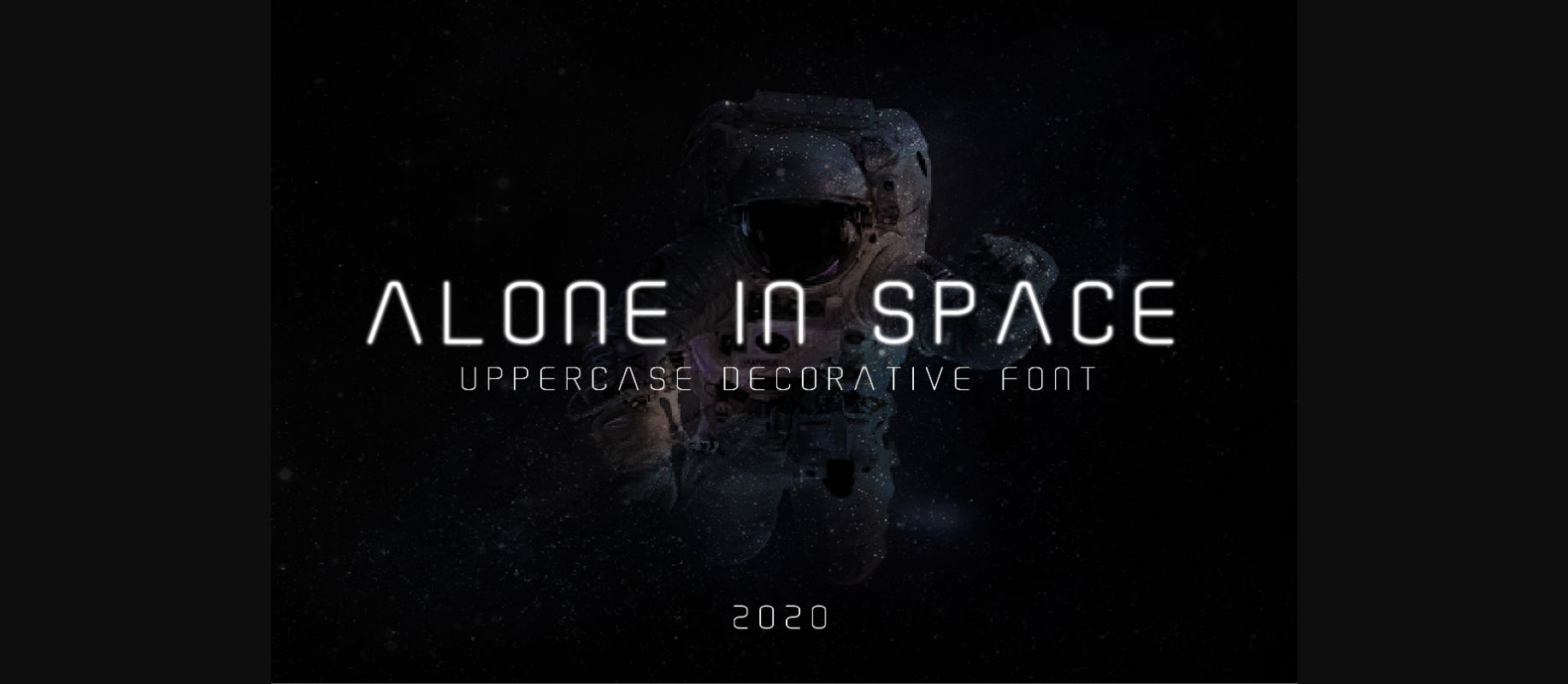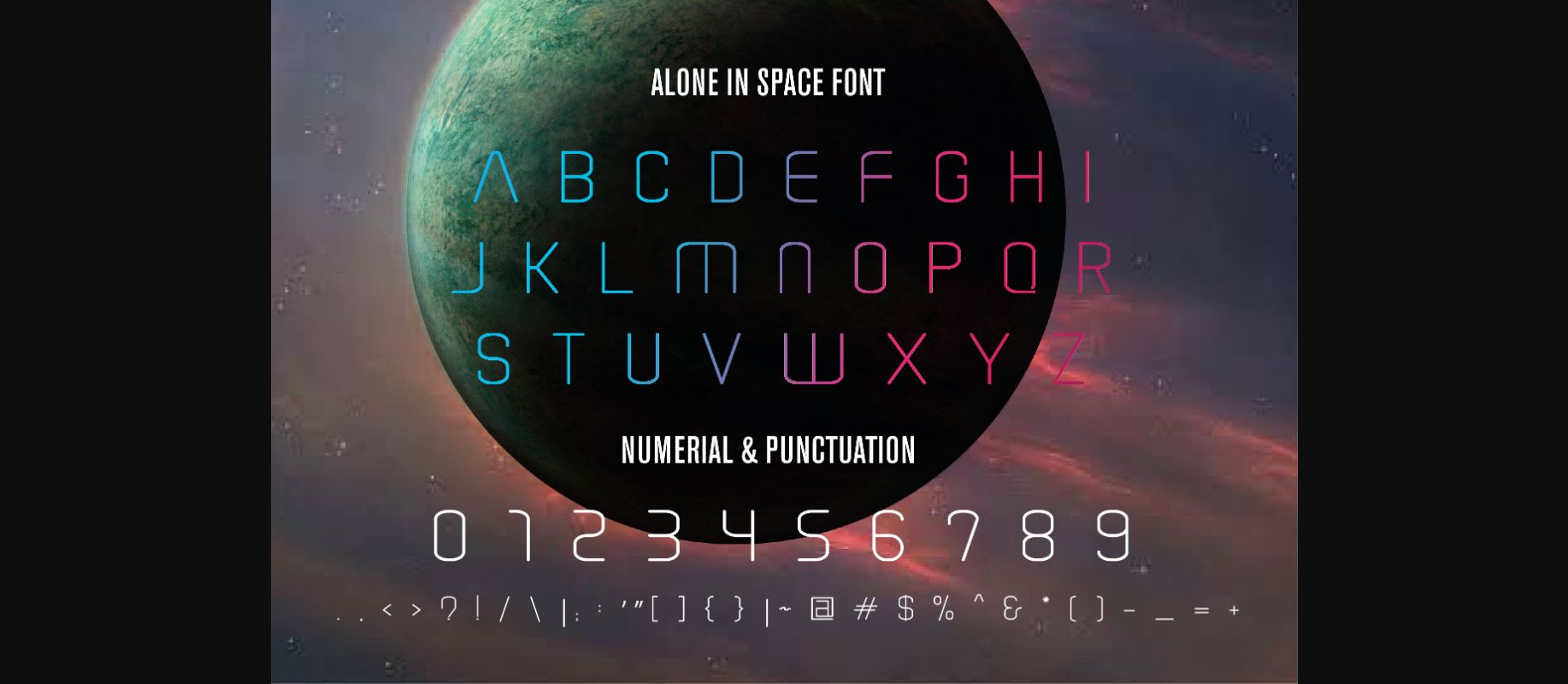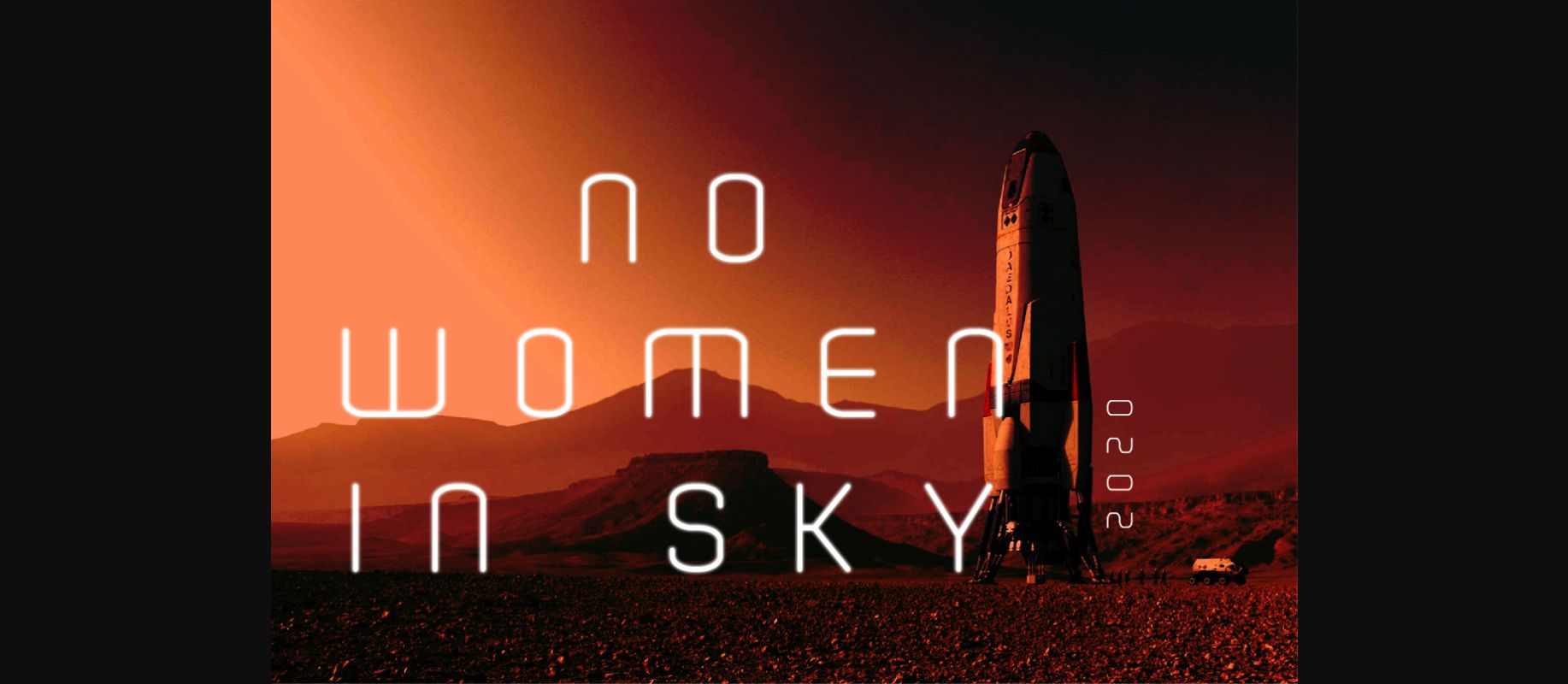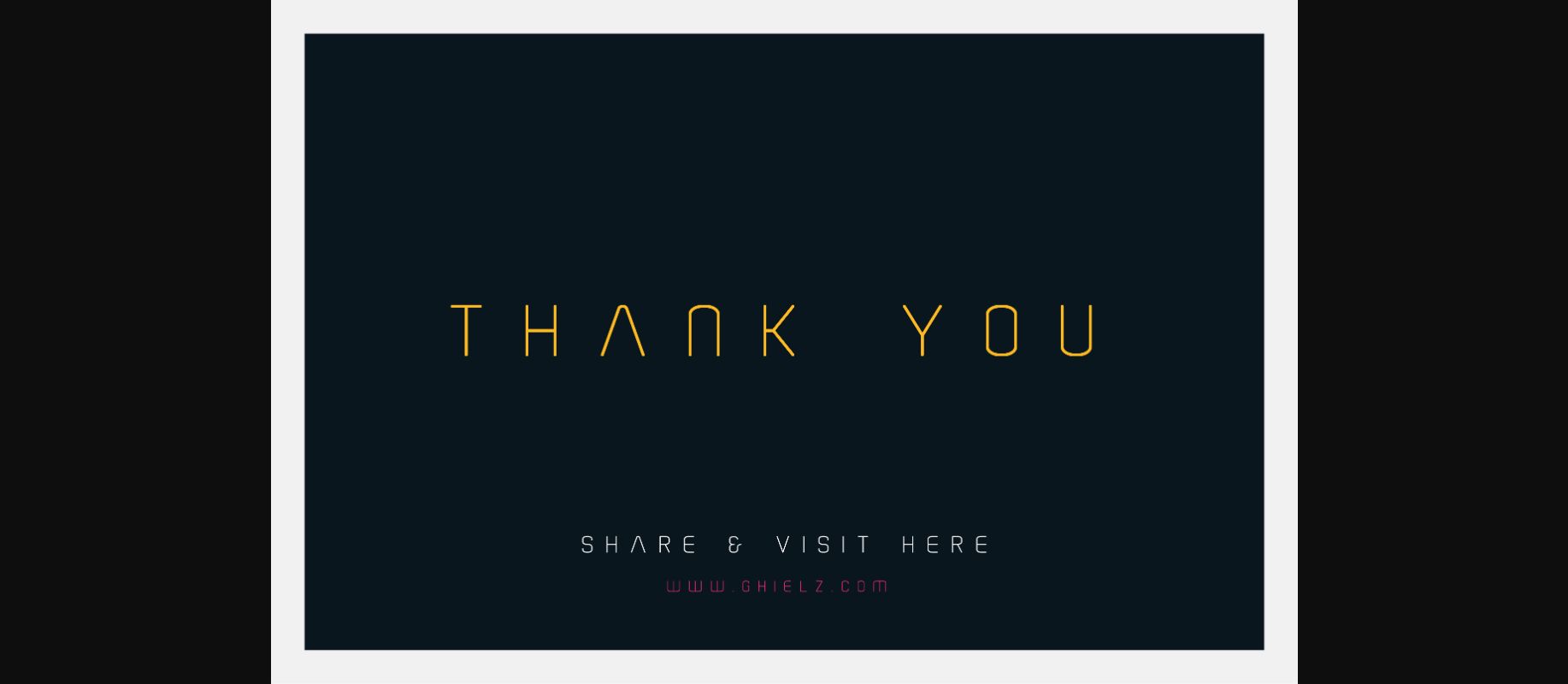
Alone in Space Font
About Alone in Space Font
Alone in Space is a modern, minimal and clean font family with uppercase letters, numbers, and punctuation. Although it has a distinctly futuristic appearance, it can be used for non-sci-fi purposes as well.
Alone in Space comes in a2 versions, regular and bold.